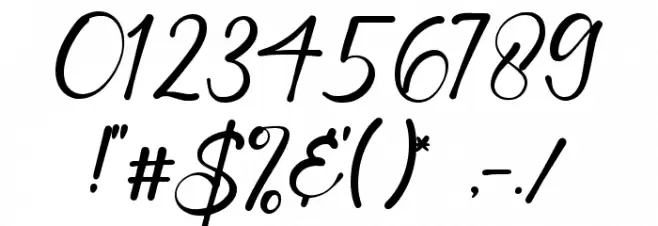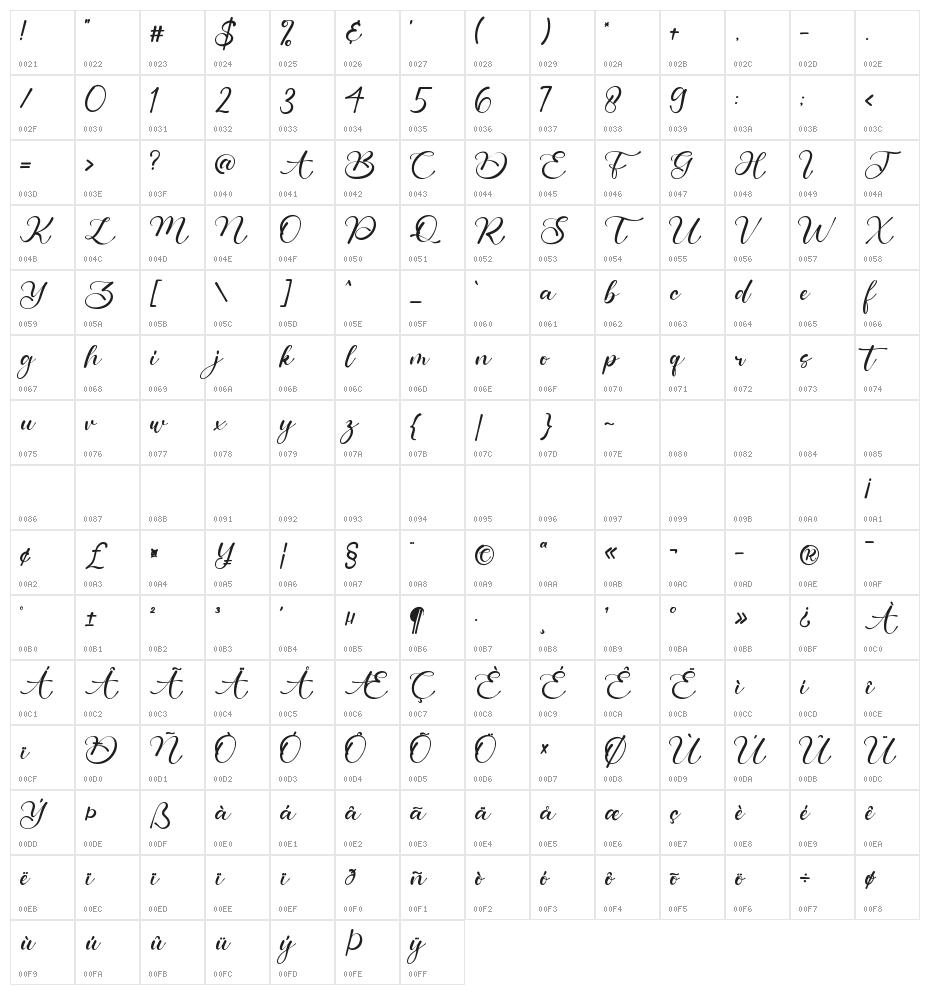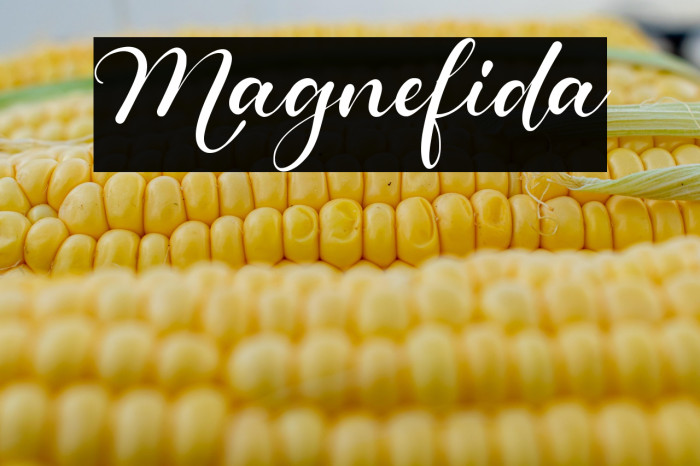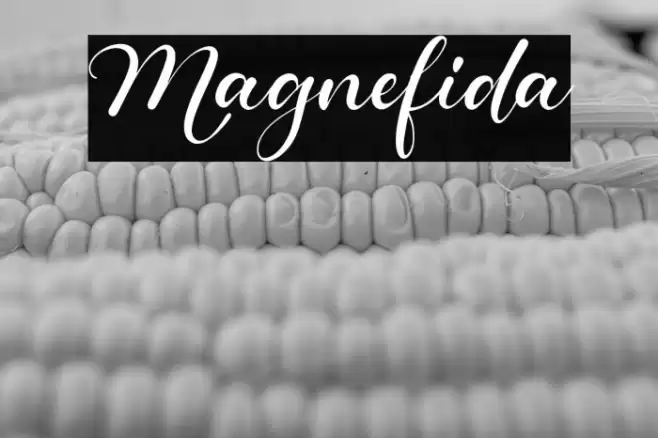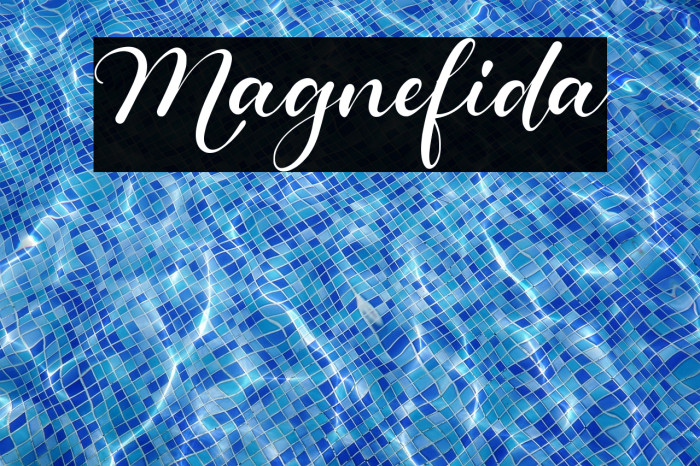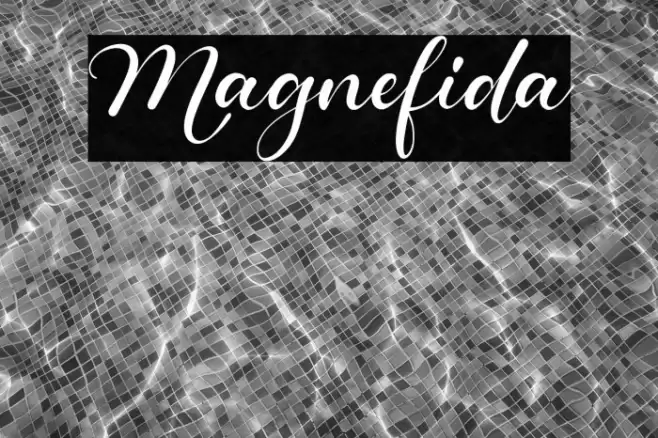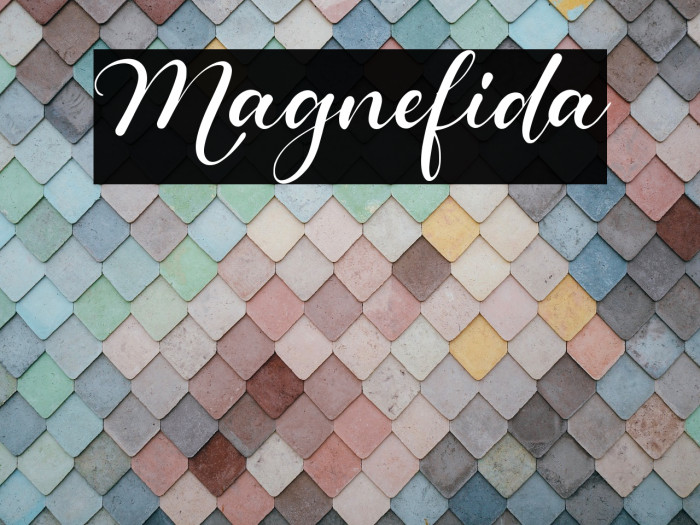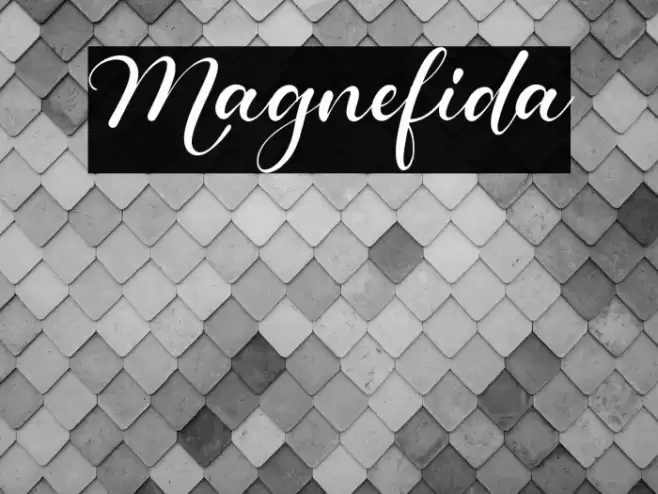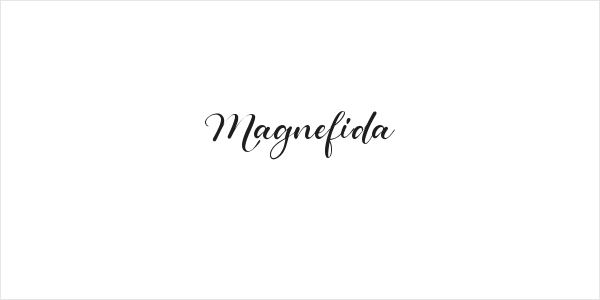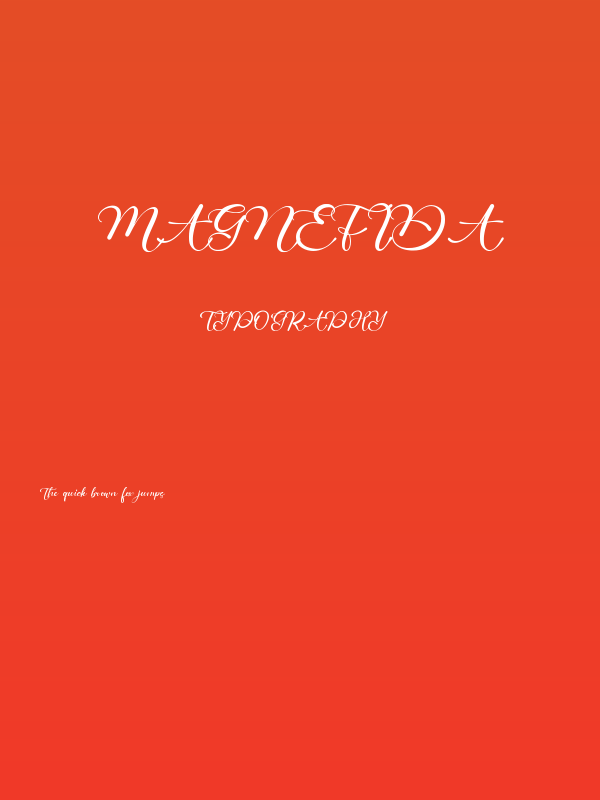
Magnefida Font
Magnefida Description
This font exudes elegance and sophistication with its fluid, cursive style. The uppercase letters are intricately designed with graceful loops and swashes, creating a sense of movement and flair. The lowercase letters maintain a consistent flow, complementing the uppercase with their smooth curves and delicate connections. Numbers and special characters are crafted with the same attention to detail, ensuring a cohesive look throughout. The overall appearance is both decorative and refined, making it ideal for projects that require a touch of class and artistry.
| Use Case | Logos, Invitations, Headlines |
| Proposed Projects | Ideal for wedding invitations, luxury branding, and elegant stationery. |